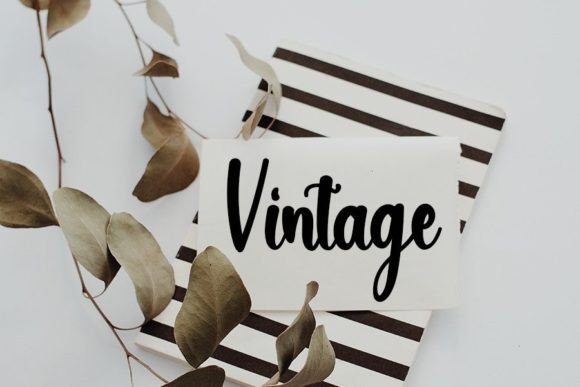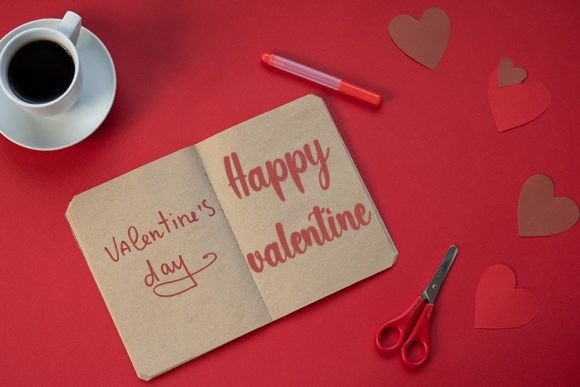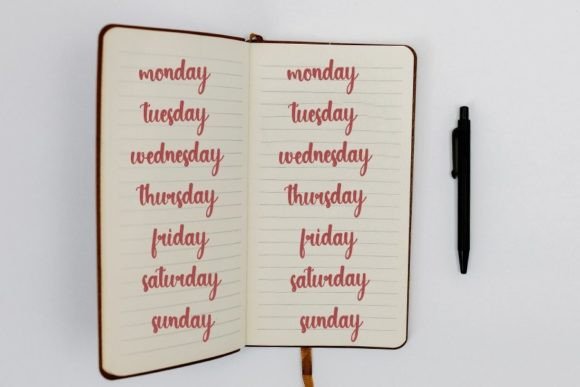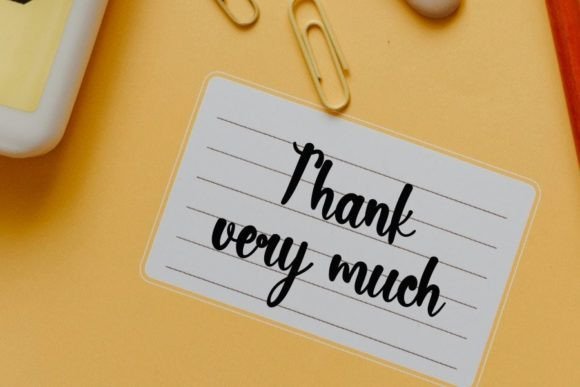
Falling in Love with Fishing Font: A Timeless Treasure for Designers
Do you ever get that moment when you’re brainstorming a new project and suddenly the perfect font pops into your mind? It’s like a spark of creativity that sets your imagination ablaze, and you can’t wait to bring your vision to life. For many designers, that perfect font is often the key to making a project truly special.
Enter Fishing Font, a beautiful handwritten font that exudes elegance and sophistication. This lovely font is designed to add a touch of whimsy and charm to any project, making it perfect for designers who want to create truly unique and memorable designs. Whether you’re working on a wedding invitation, a book cover, or a social media campaign, Fishing Font is the perfect choice to add a personal and timeless touch.
Fishing Font Key Features
- Unique Characteristics: Fishing Font features a unique, hand-drawn design with a playful and whimsical feel, making it perfect for creative projects and designs that require a touch of personality.
- Font Style: Fishing Font is available in both regular and bold styles, allowing designers to add depth and emphasis to their designs.
Fishing Font Review
As a designer, I recently had the chance to work with “Fishing Font”, and I’m here to share my honest review.
- The font has a beautiful, hand-drawn feel that adds a touch of whimsy to any design project.
- The font is highly customizable, with a wide range of styles and weights to choose from.
- The font is well-suited for projects that require a playful, adventurous vibe.
- The font can be difficult to read at smaller font sizes, which may make it less suitable for projects that require a lot of text.
- The font may not be the best choice for projects that require a more formal or professional tone.
I would recommend “Fishing Font” for projects that require a fun, adventurous vibe. While it may have some limitations, the font’s unique personality and high level of customizability make it a great choice for designers looking to add some personality to their projects.
Tips for Getting the Most Out of Fishing Font
Use Fishing Font for titles, headings, and emphasis.
Combine Fishing Font with other fonts for a unique look.
Adjust the font size and style to create visual hierarchy.
Fishing Font is perfect for:
Casual blog posts and social media graphics.
Outdoor and sports-themed designs.
Summer-themed party invitations and decorations.
Alternatives to Fishing Font for Designers
Playfair Display is a luxurious, high-end font that can add sophistication and elegance to your designs. It’s ideal for use in titles, headings, and other prominent text elements where you want to make a statement. Unlike Fishing Font, which has a more casual, playful feel, Playfair Display is perfect for formal or high-end branding projects.
Great Vibes is a modern, elegant script font that can add a touch of sophistication and refinement to your designs. It’s suitable for use in titles, headings, and other prominent text elements where you want to convey a sense of luxury and style. While Fishing Font has a more rustic, laid-back feel, Great Vibes is more polished and refined, making it a great alternative for designers who want to create a more high-end look.
Alex Brush is a beautiful, elegant script font that can add a touch of sophistication and whimsy to your designs. It’s ideal for use in titles, headings, and other prominent text elements where you want to convey a sense of creativity and individuality. Unlike Fishing Font, which has a more casual, playful feel, Alex Brush is perfect for designers who want to create a more unique and eye-catching look.